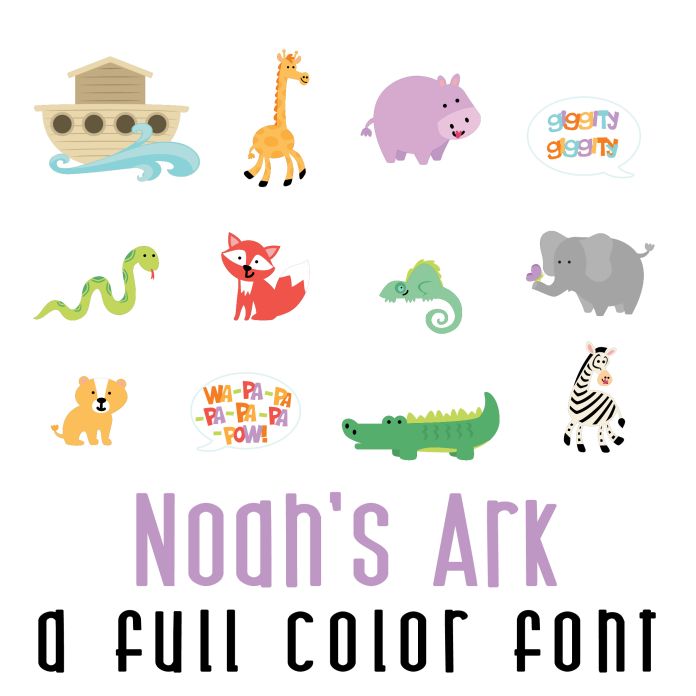
This fun full color font features 39 animals, sounds and elements from this classic Bible story. Perfect for classrooms, teachers, gifts, decor, scrap book pages, planner stickers and more! Dingbats are A-Z and 0-9, !@#.